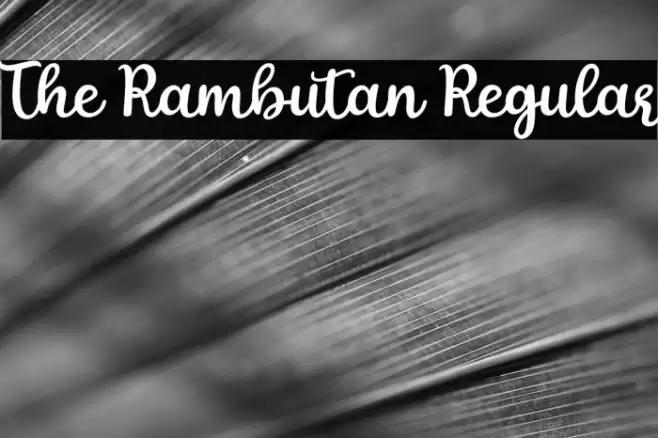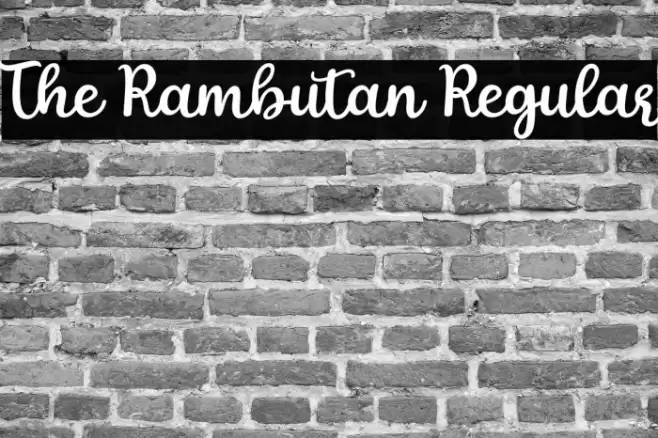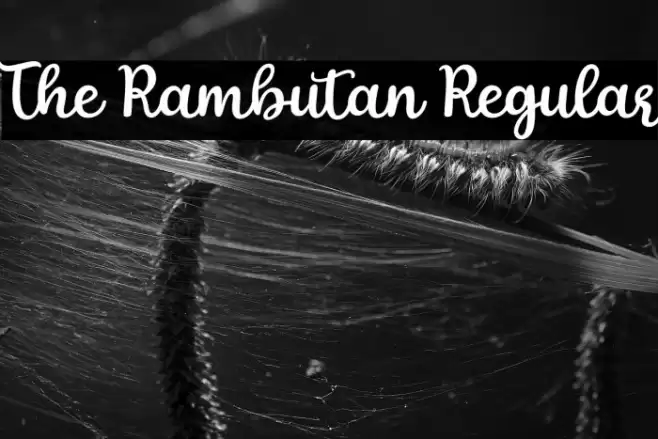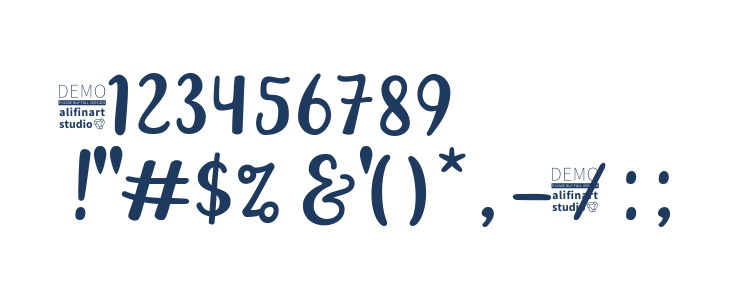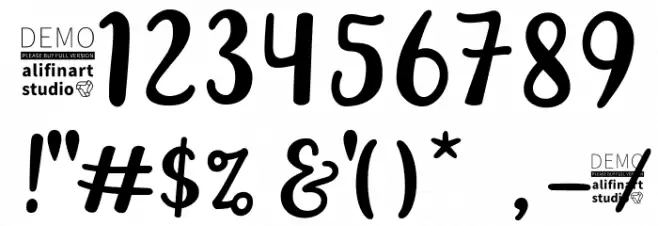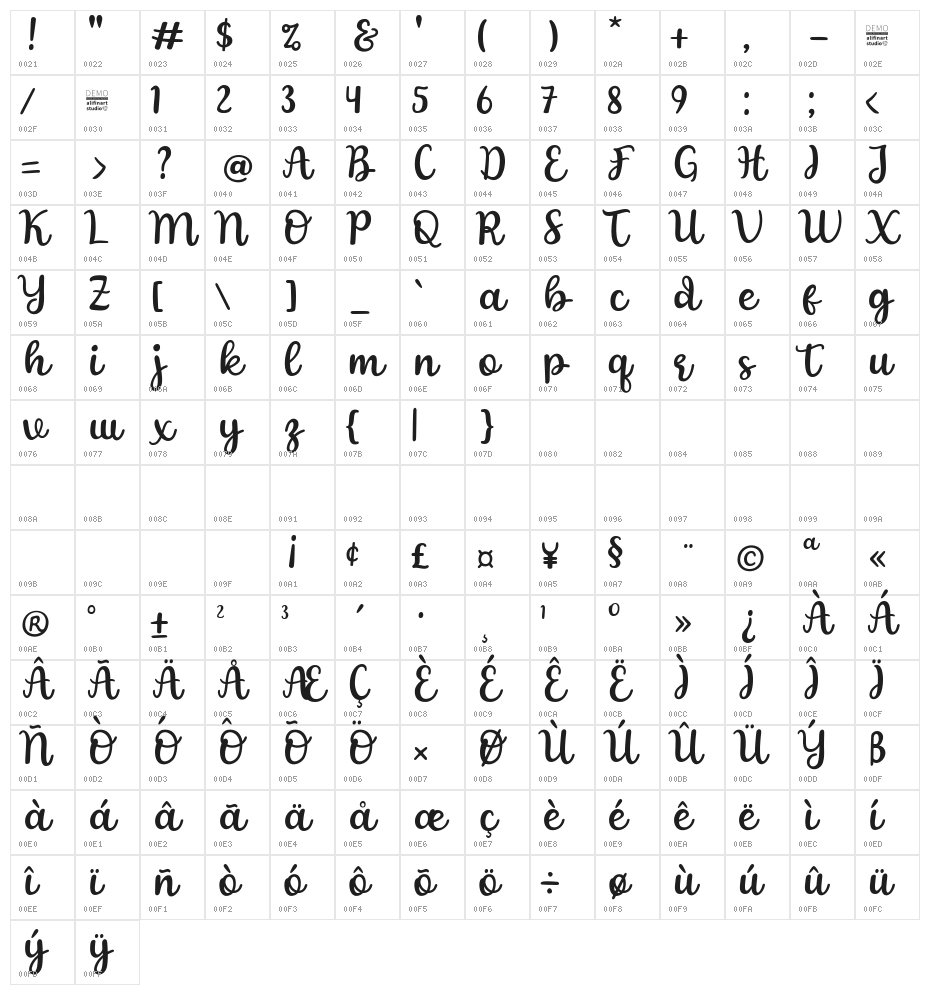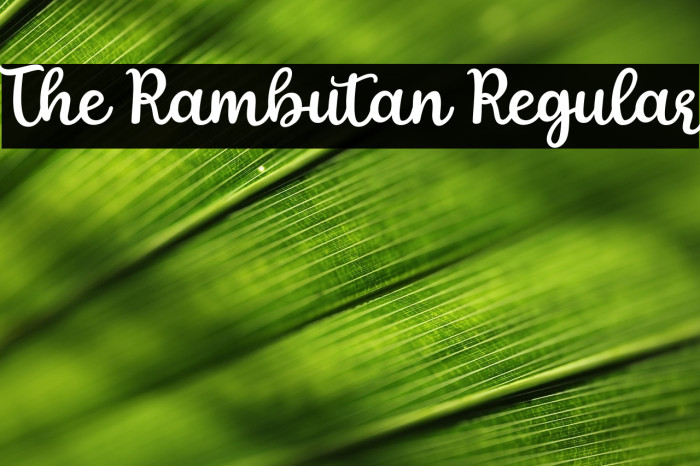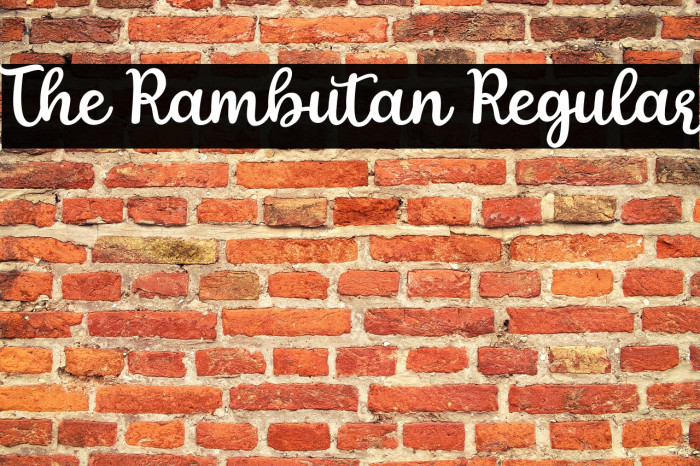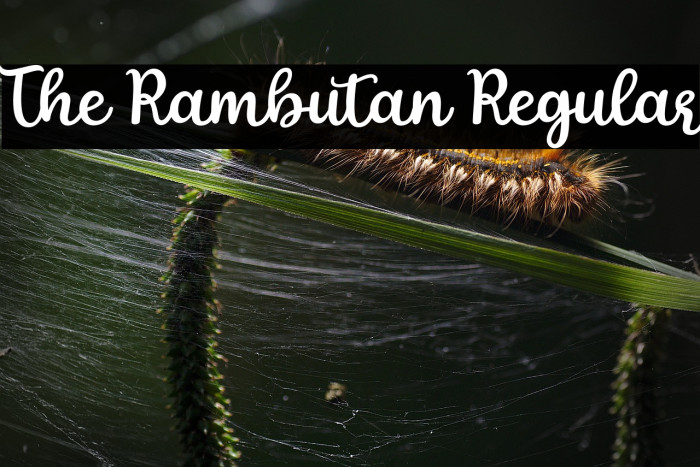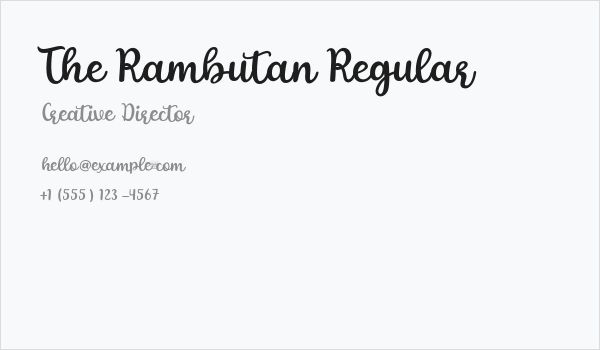
The Rambutan Regular Font
The Rambutan Regular Description
This font features a playful and energetic script style, characterized by its bold and flowing letterforms. The uppercase letters exhibit a whimsical flair with exaggerated curves and loops, while the lowercase letters maintain a consistent rhythm and fluidity. The numbers and special characters are crafted with the same lively spirit, ensuring a cohesive look across all text. The strokes are thick and consistent, providing a strong visual impact. This font is ideal for projects that require a fun and engaging aesthetic, such as invitations, greeting cards, and playful branding.
A bold, playful script font with flowing, energetic letterforms from Regular fonts.
- Font: The Rambutan Regular
- Proposed Projects: Ideal for invitations, greeting cards, playful branding, and creative projects.
- Use Case: Logos, Headlines, Invitations